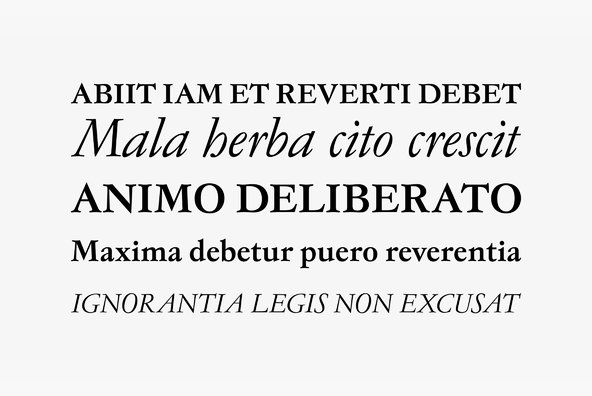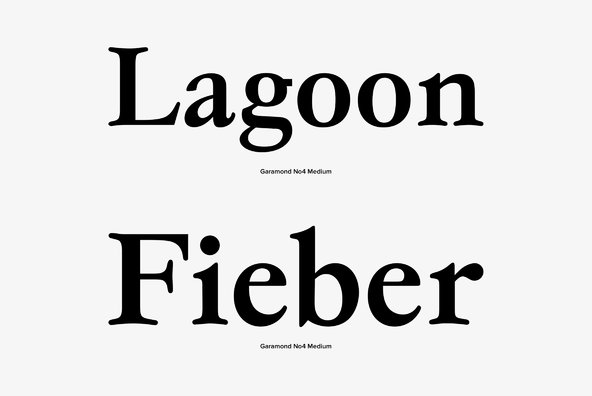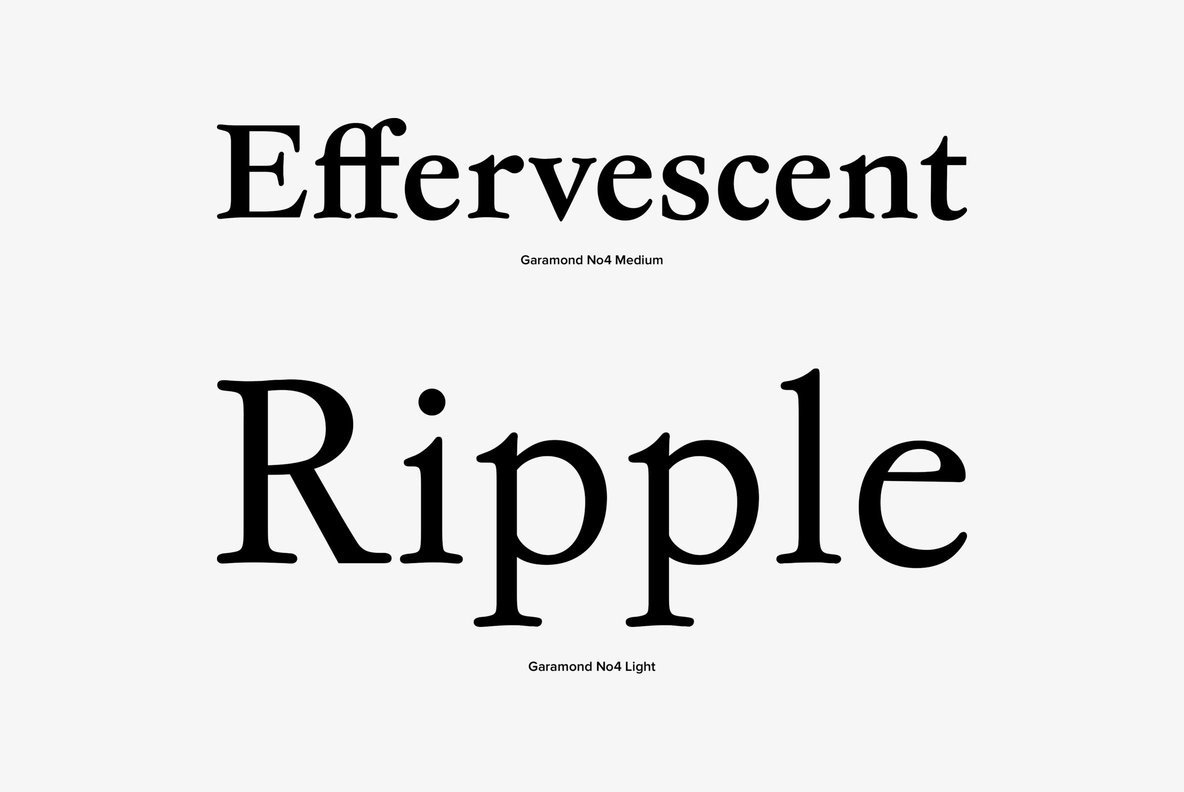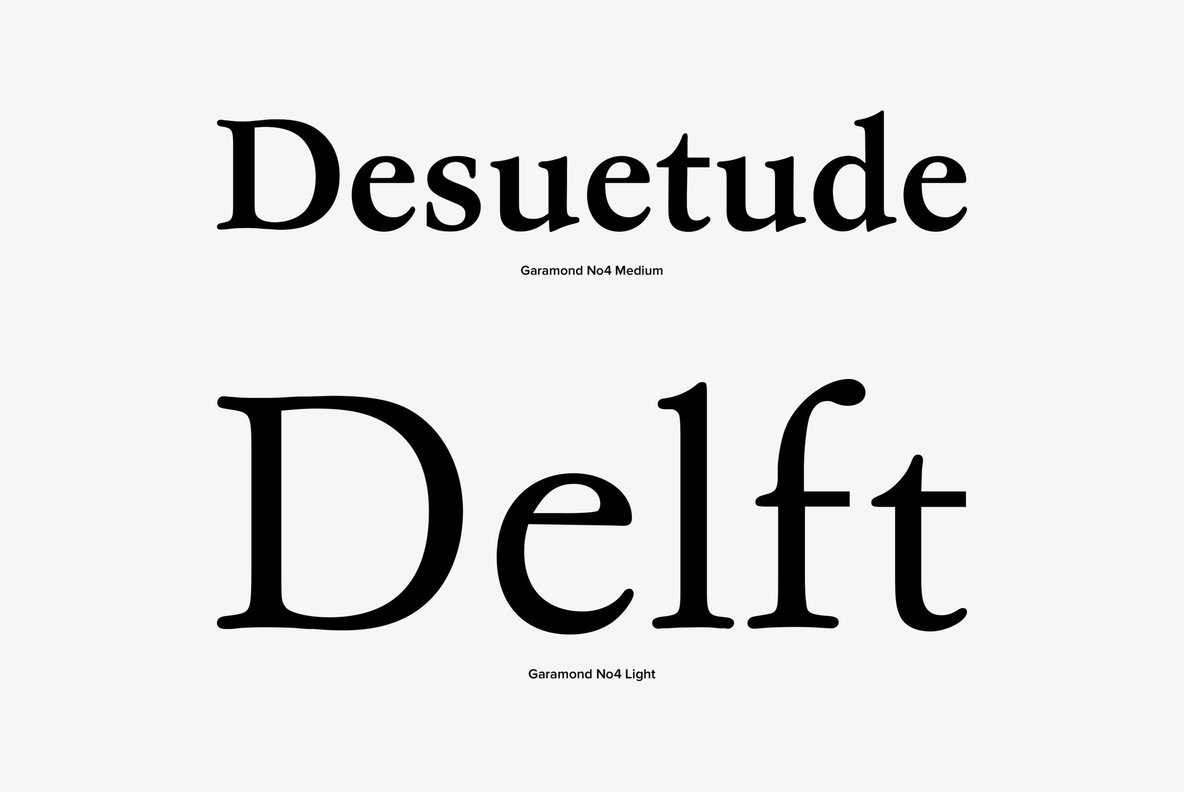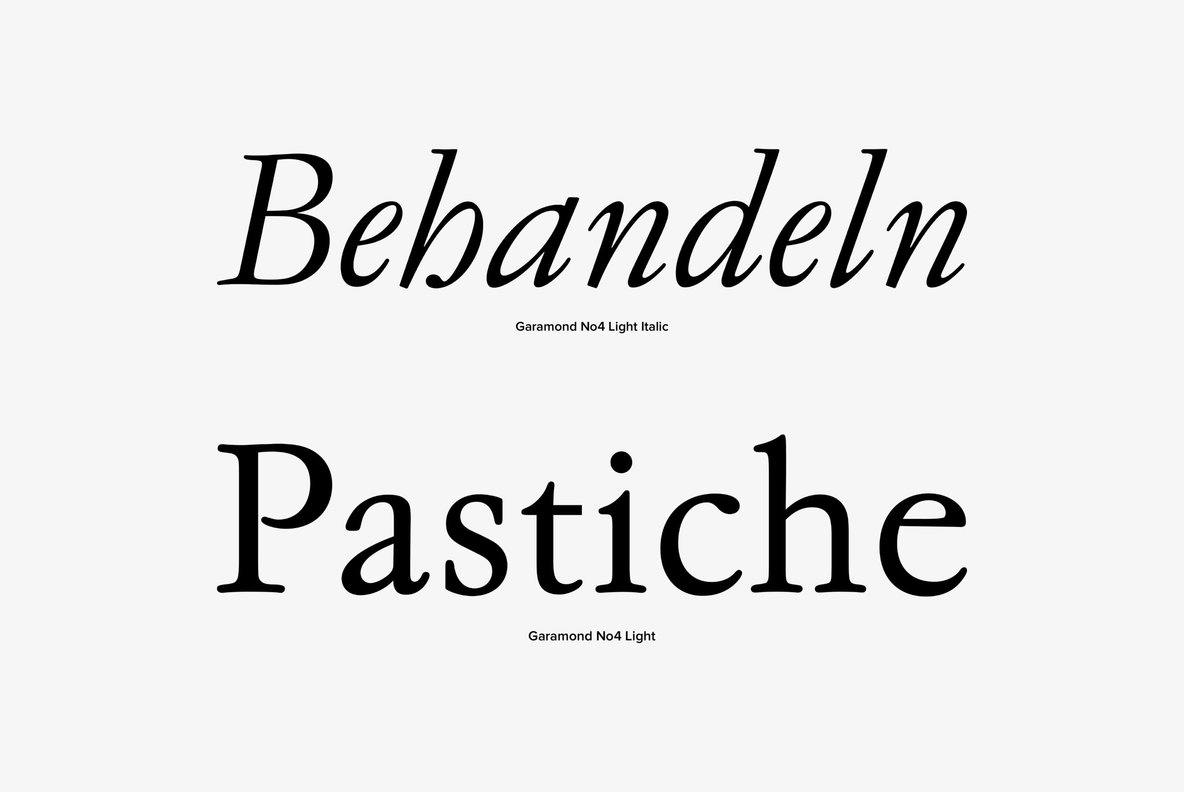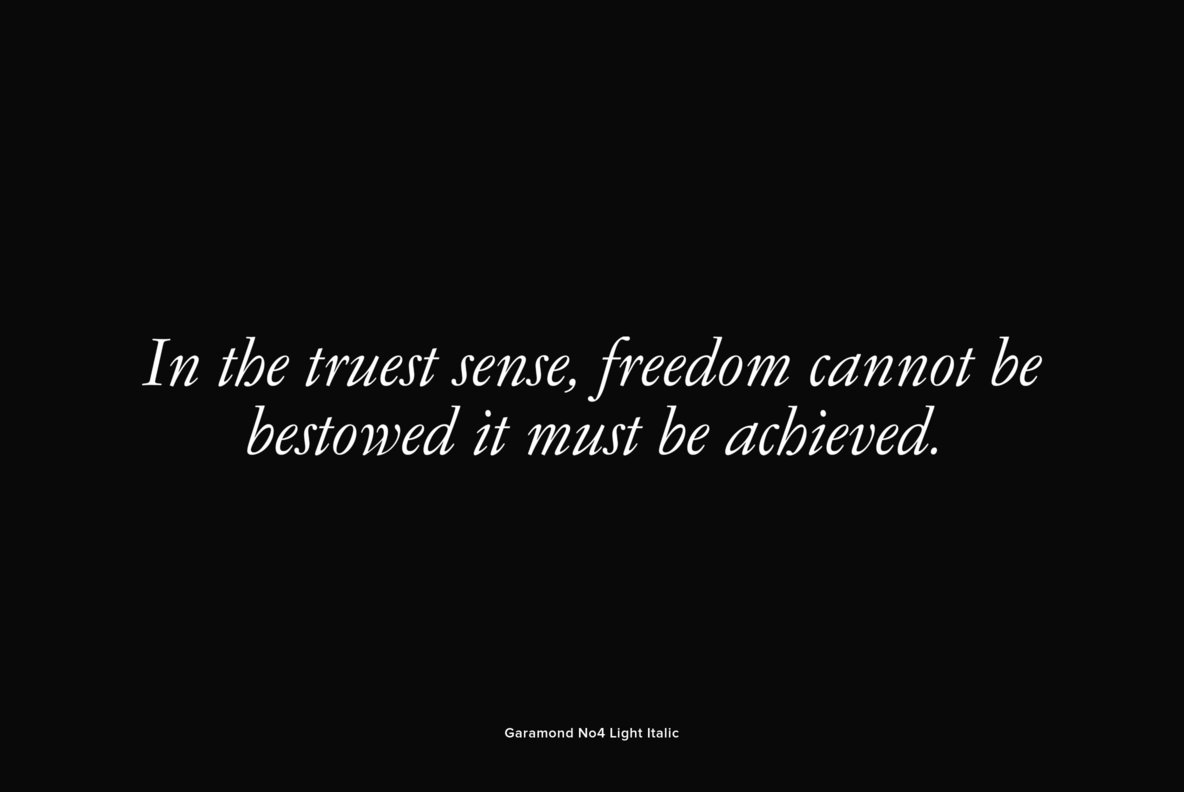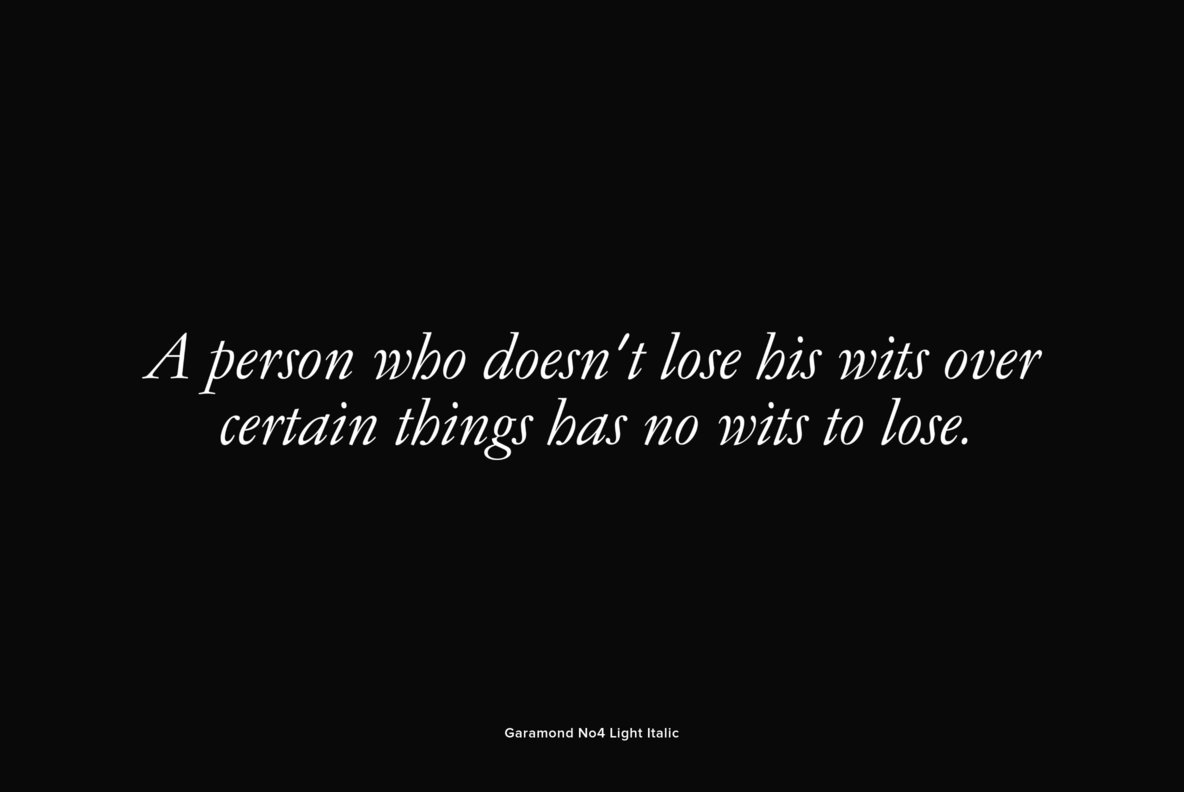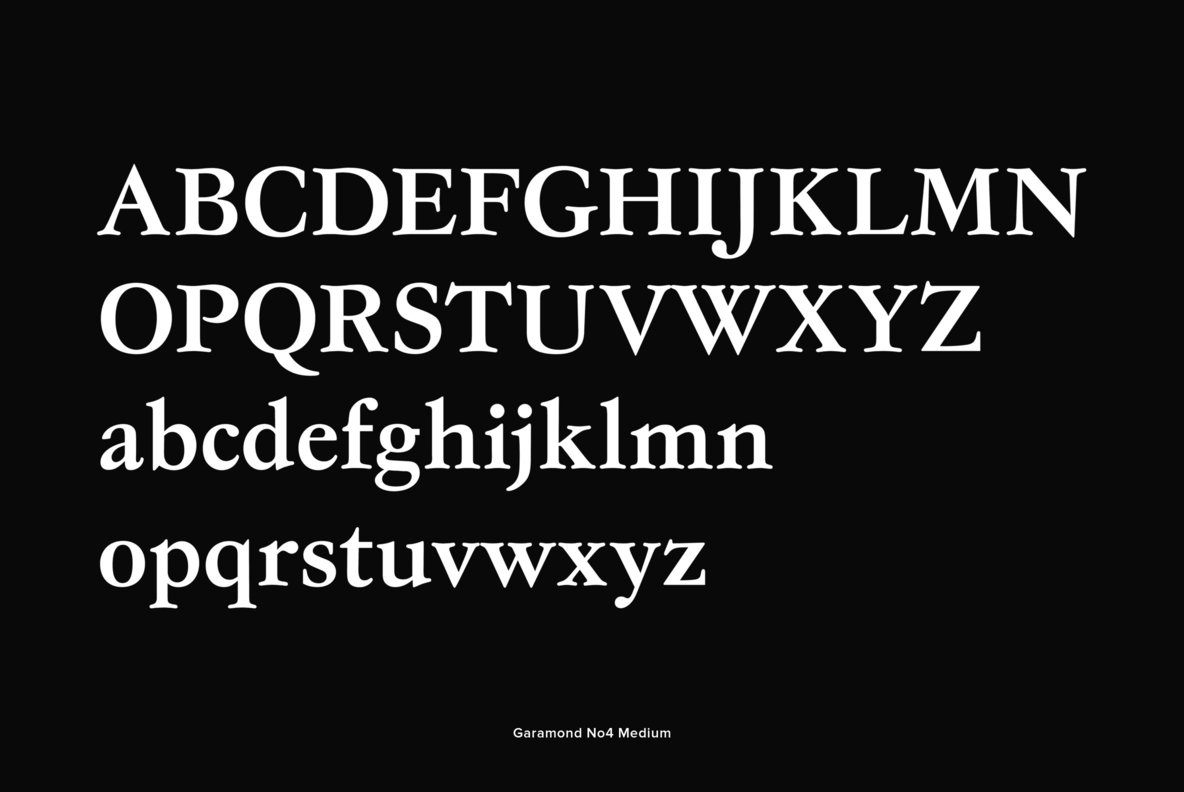
Garamond No 4
Garamond No 4 is a classic and elegant serif font, designed by Herbert Thannhaeuser in 1955. Garamond No 4 contains West, East, Turkish, Baltic, Romanian language support.